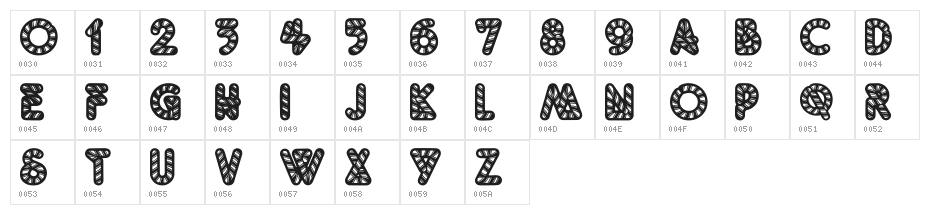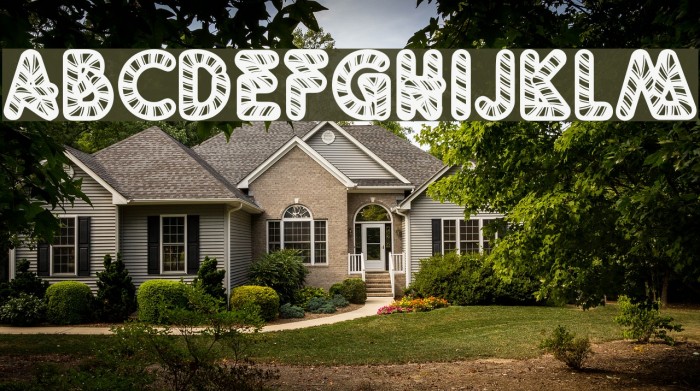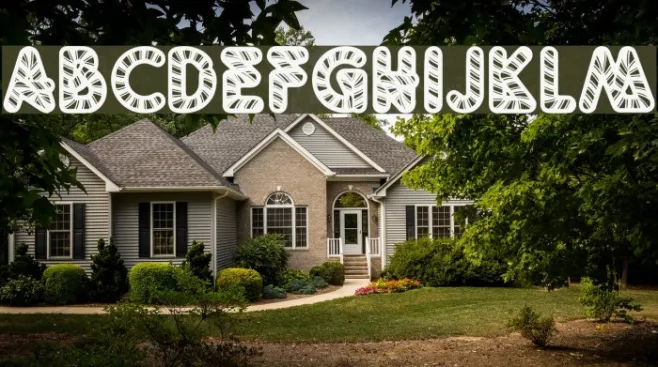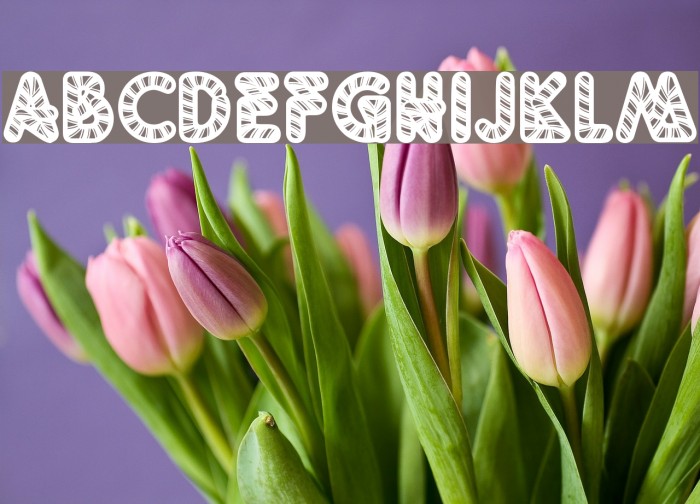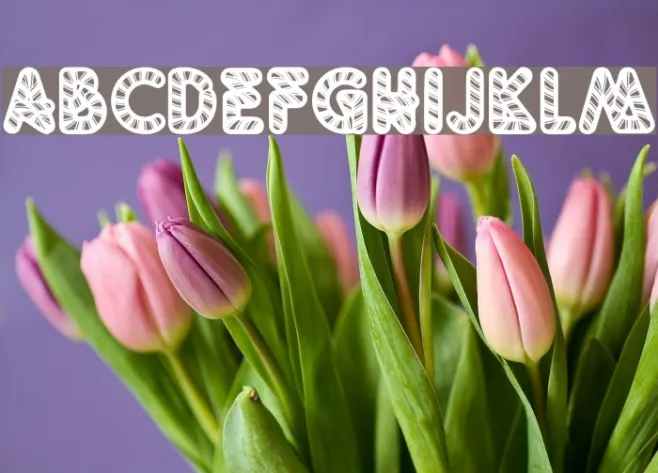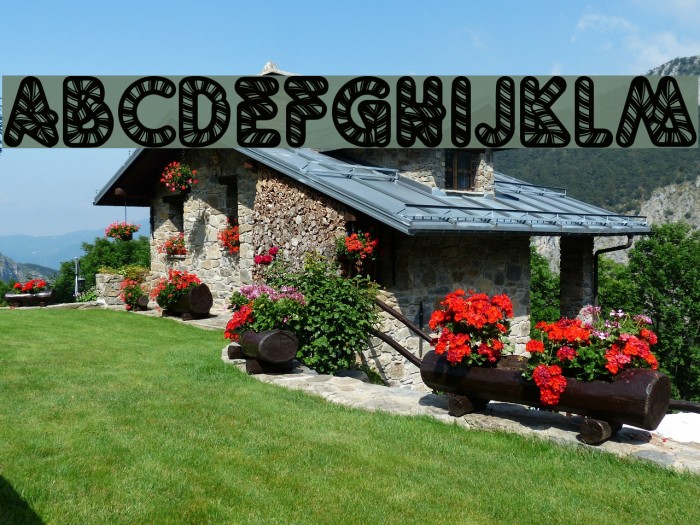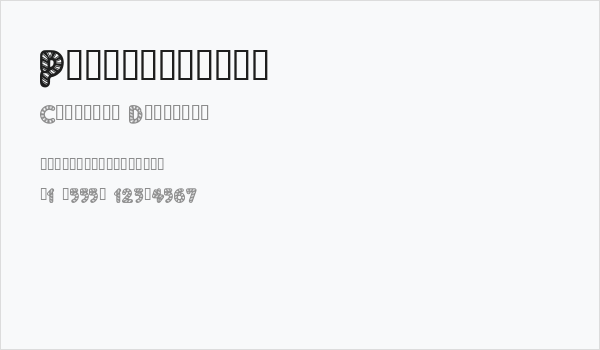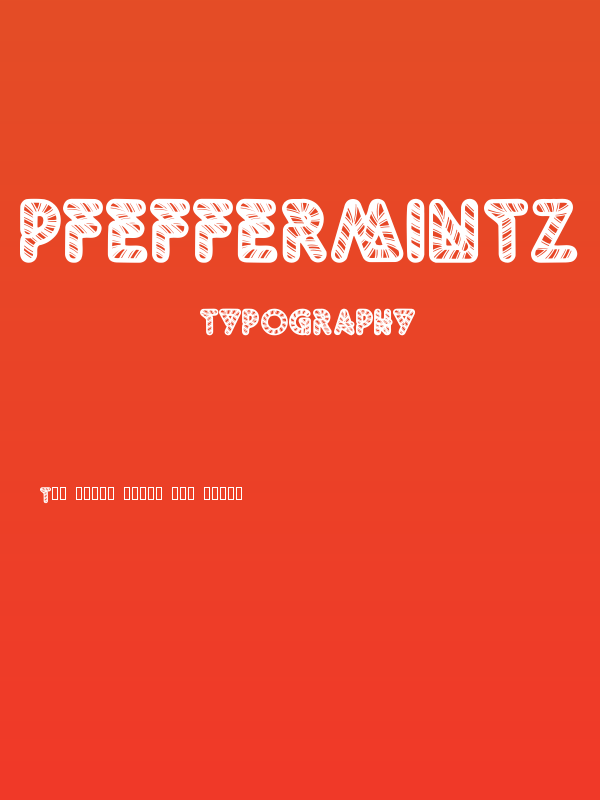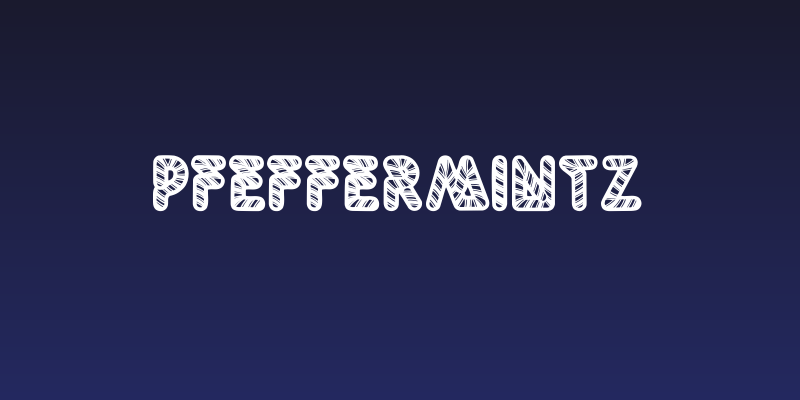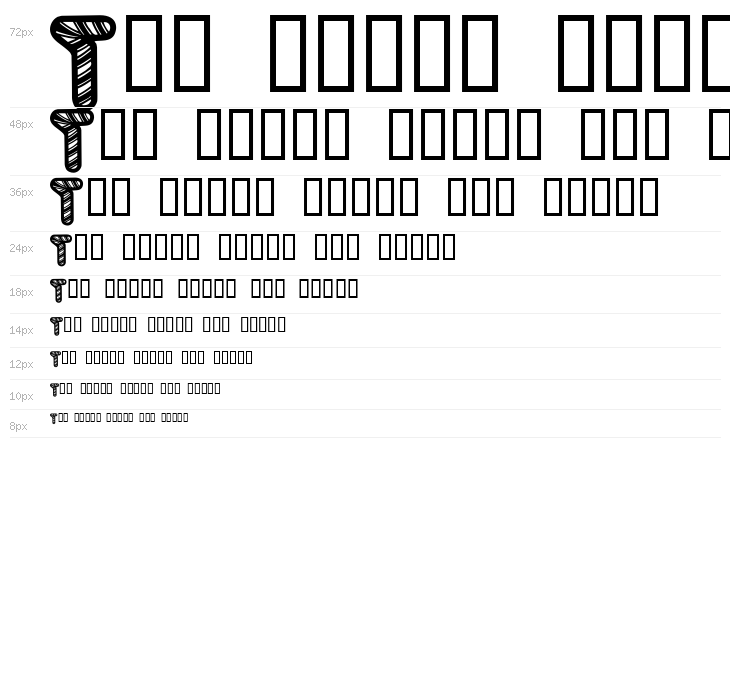
Pfeffermintz Font
Pfeffermintz Description
This font features a playful and decorative style, characterized by bold, rounded letters filled with intricate, swirling patterns reminiscent of peppermint candies. The design is highly detailed, with each character showcasing a unique combination of stripes and curves that create a sense of movement and whimsy. The font's boldness and intricate detailing make it stand out, while its rounded edges add a friendly and approachable feel. The consistent patterning across all characters ensures a cohesive look, making it ideal for eye-catching designs.
| Proposed Projects | Ideal for holiday-themed designs, children's book covers, playful branding, festive invitations, and decorative posters. |